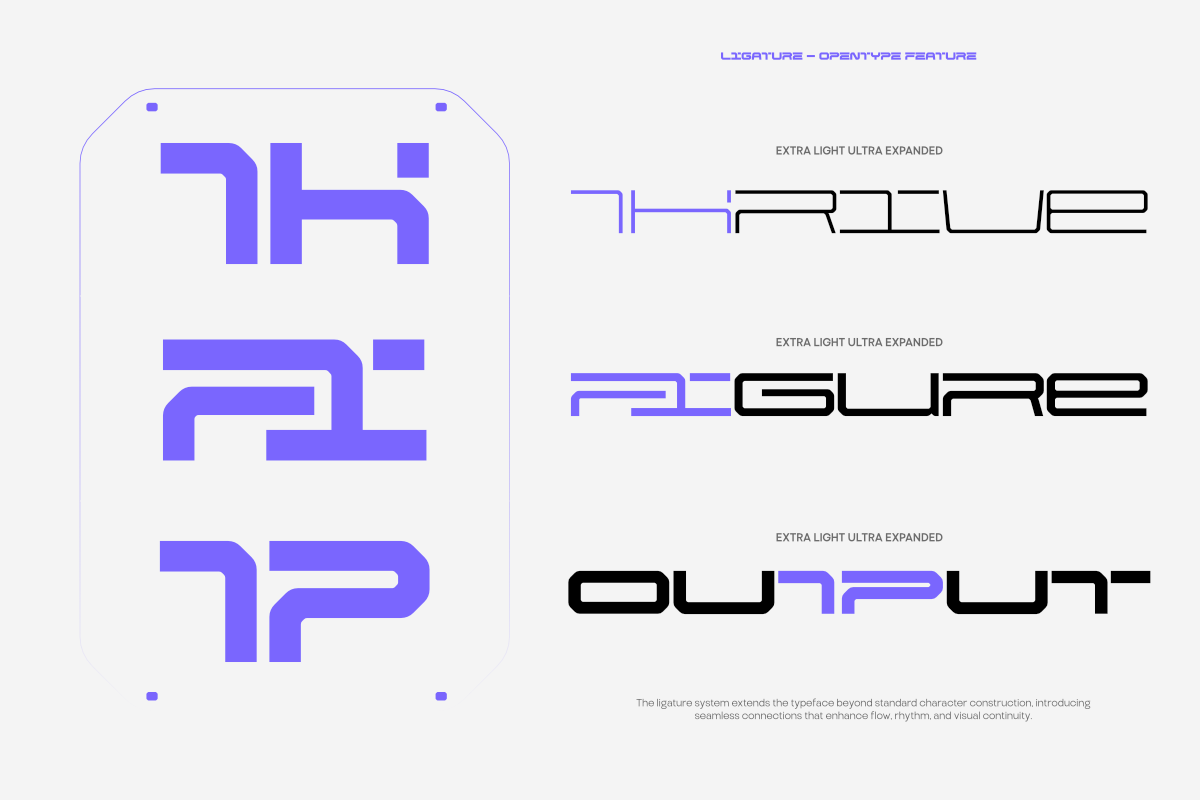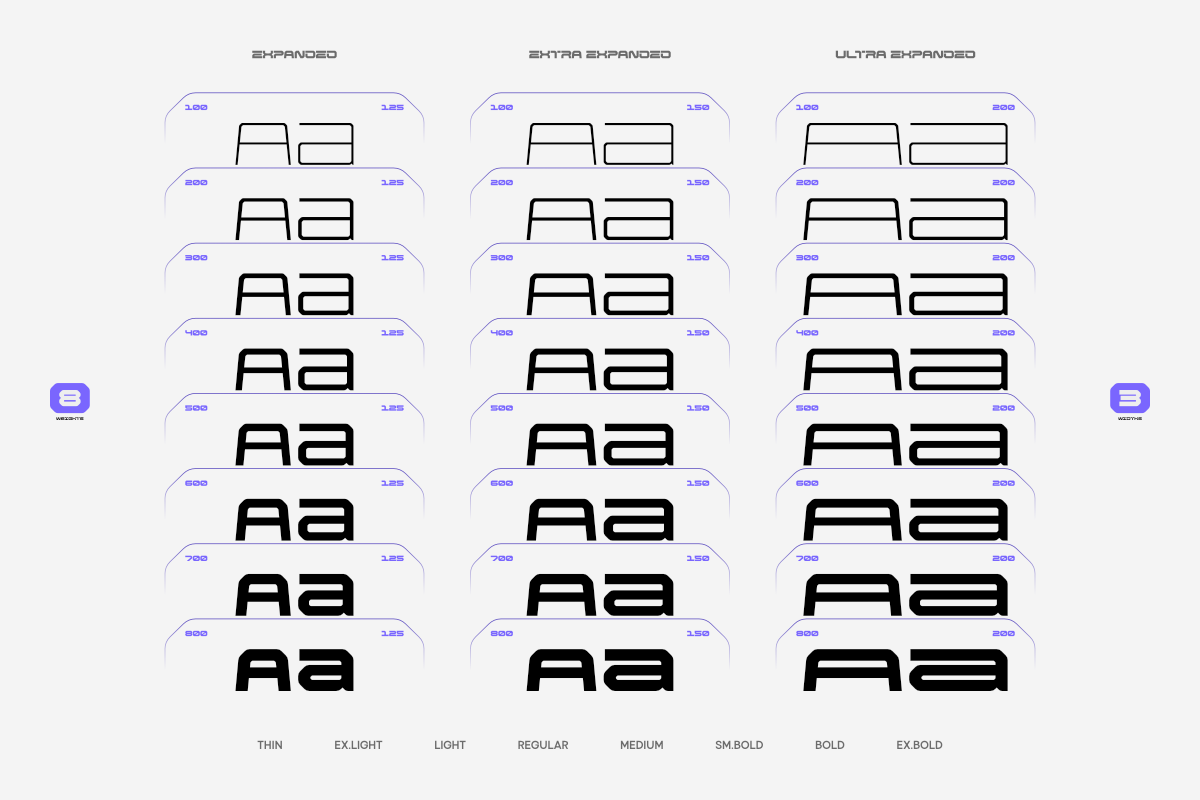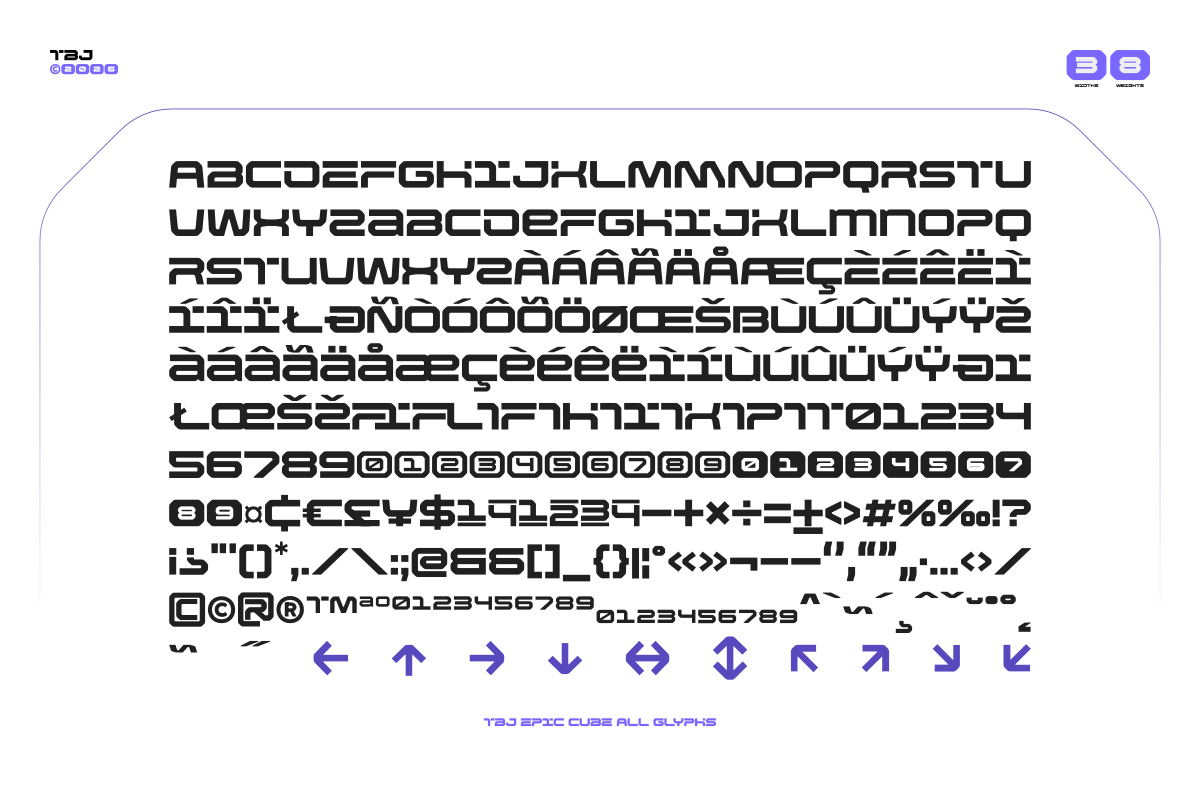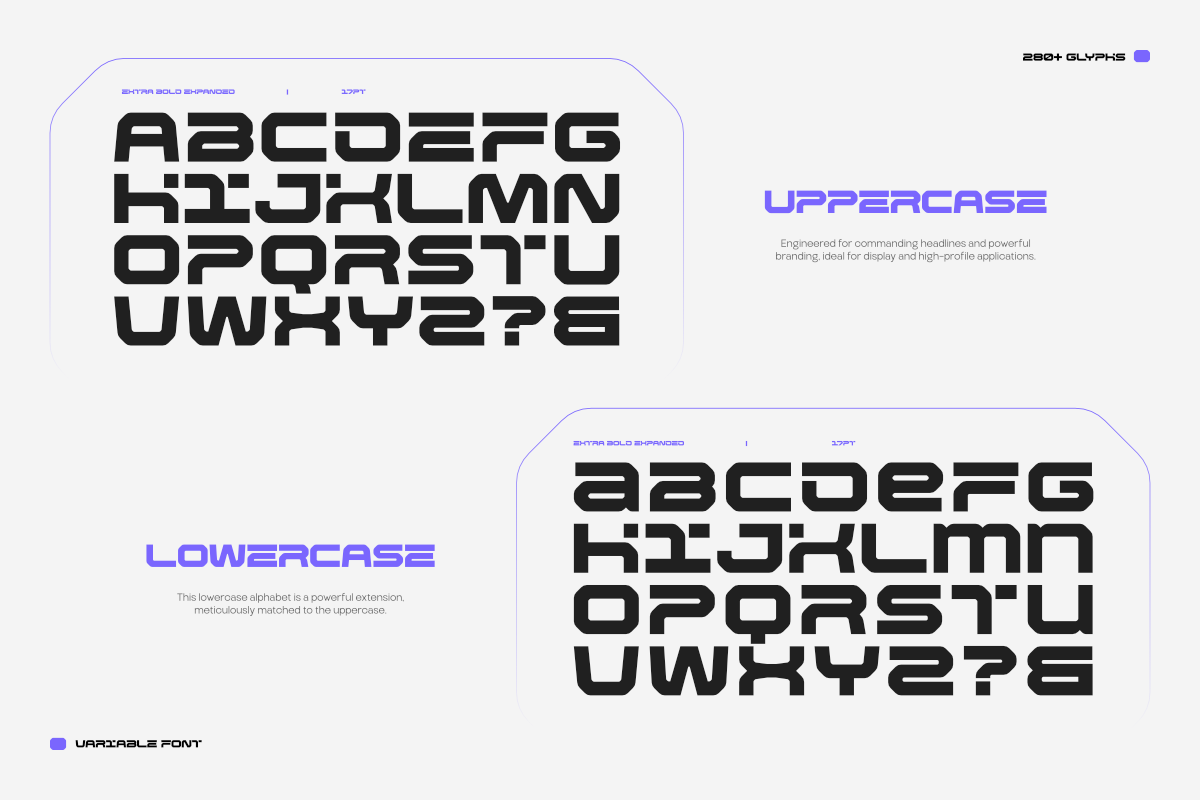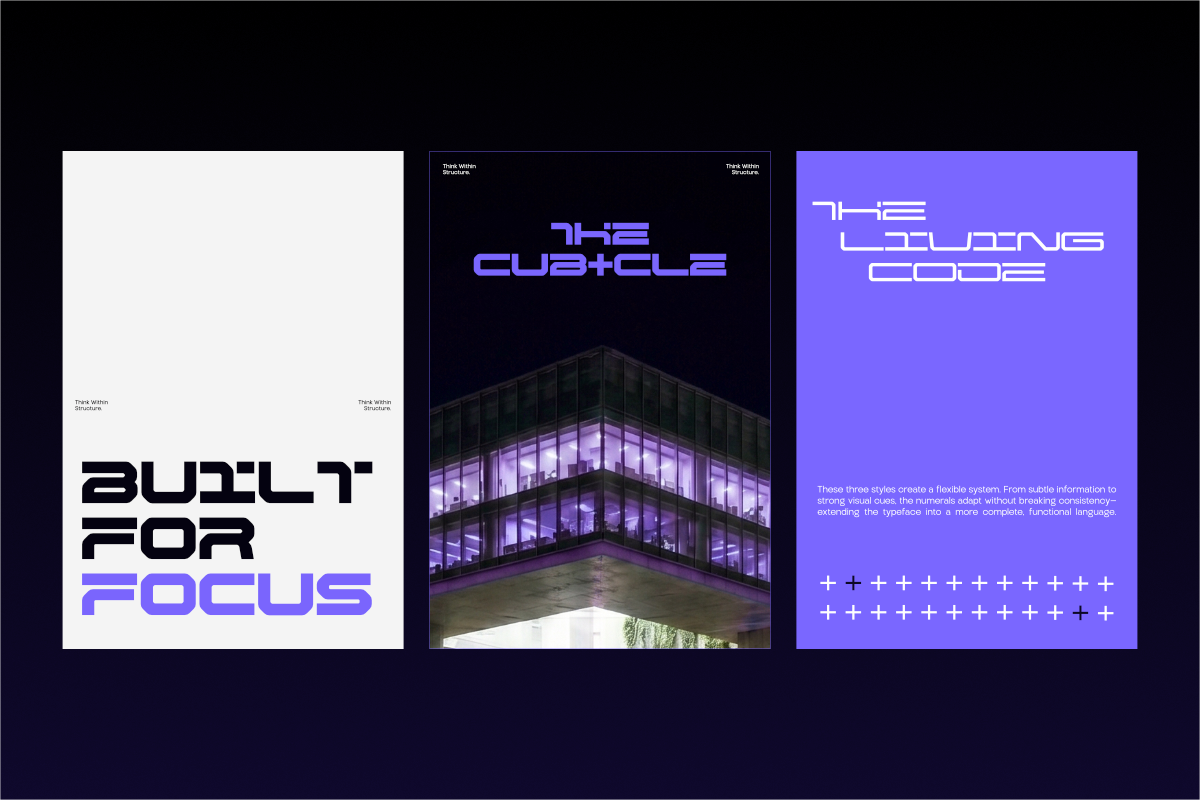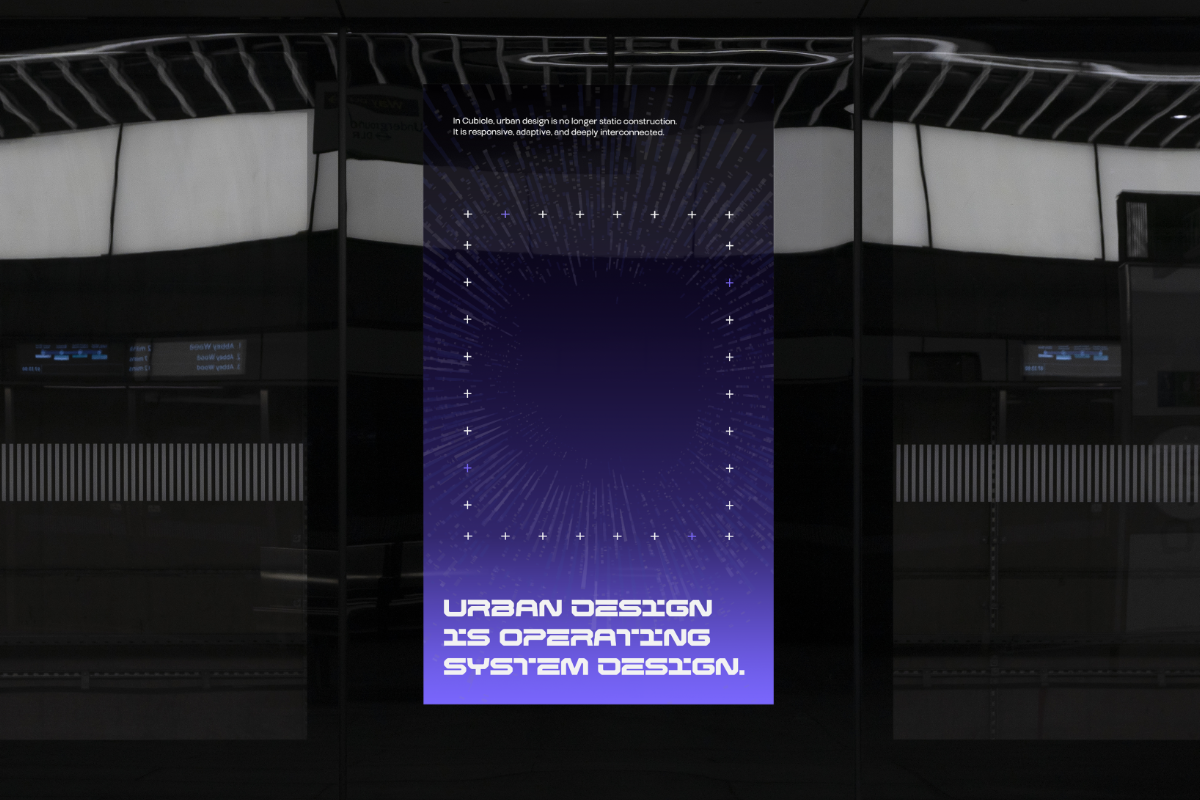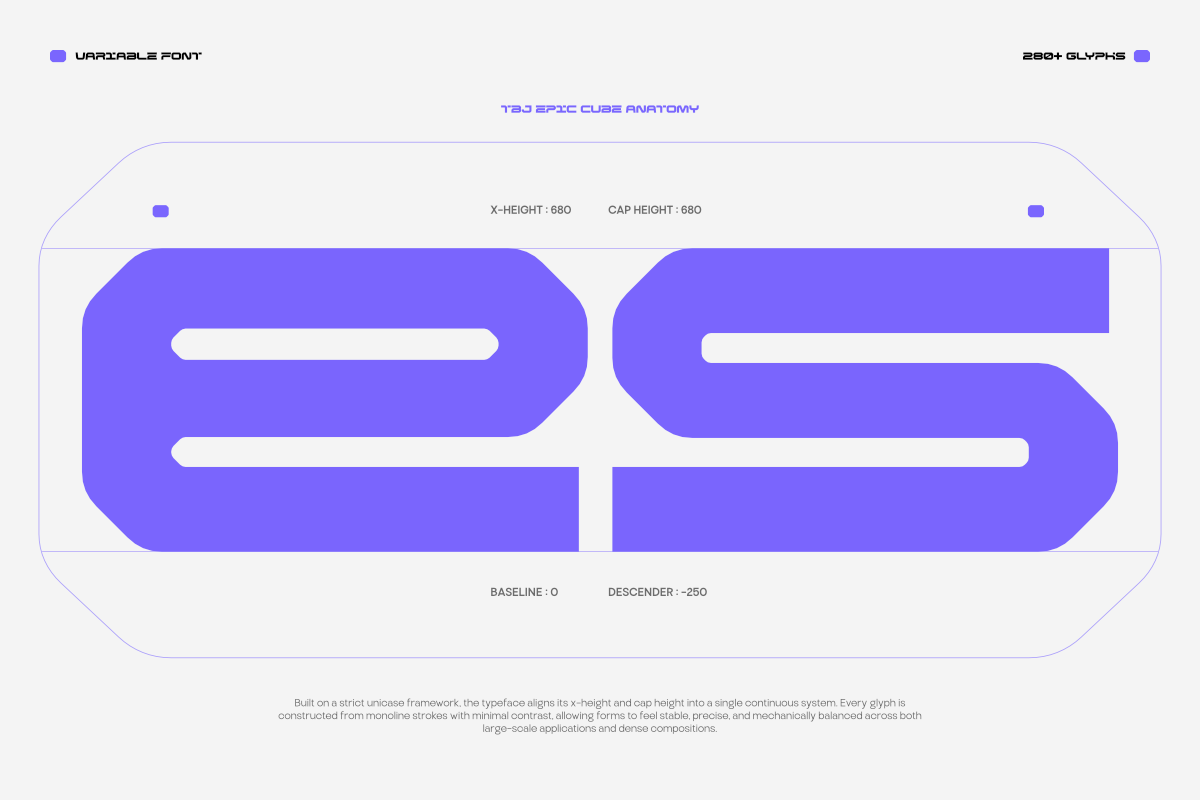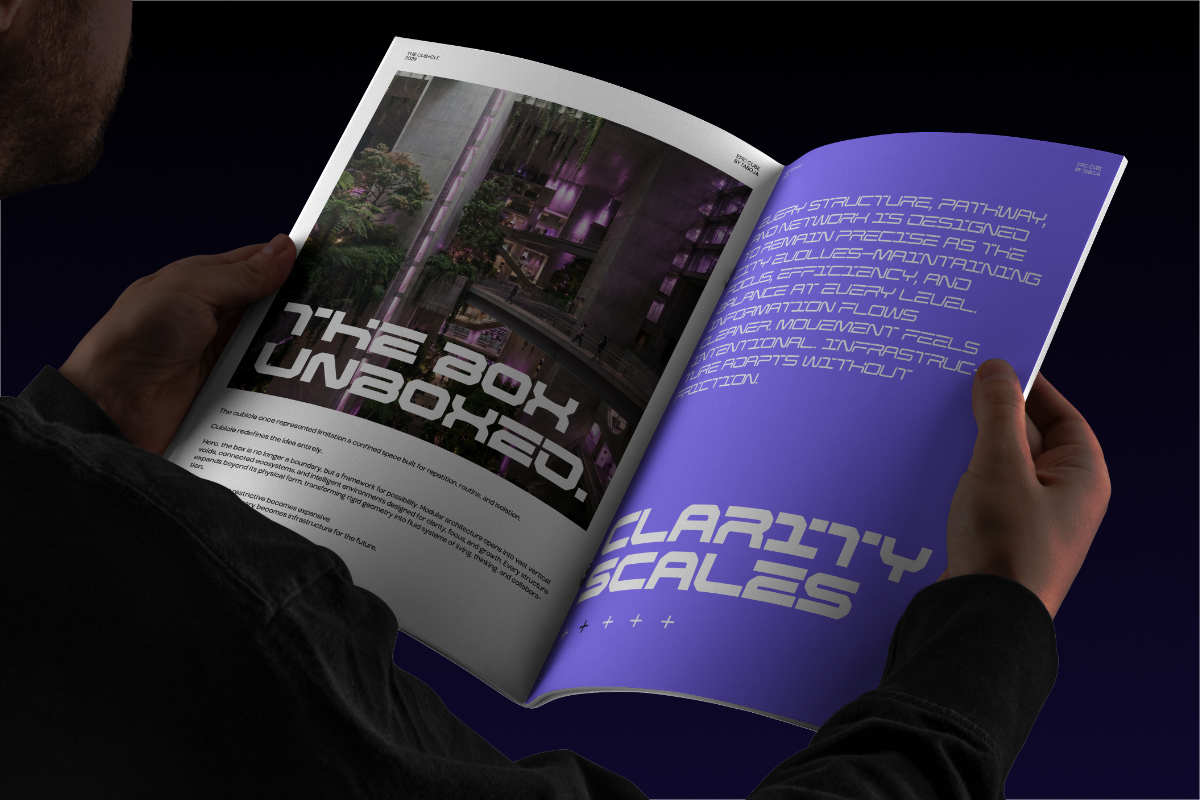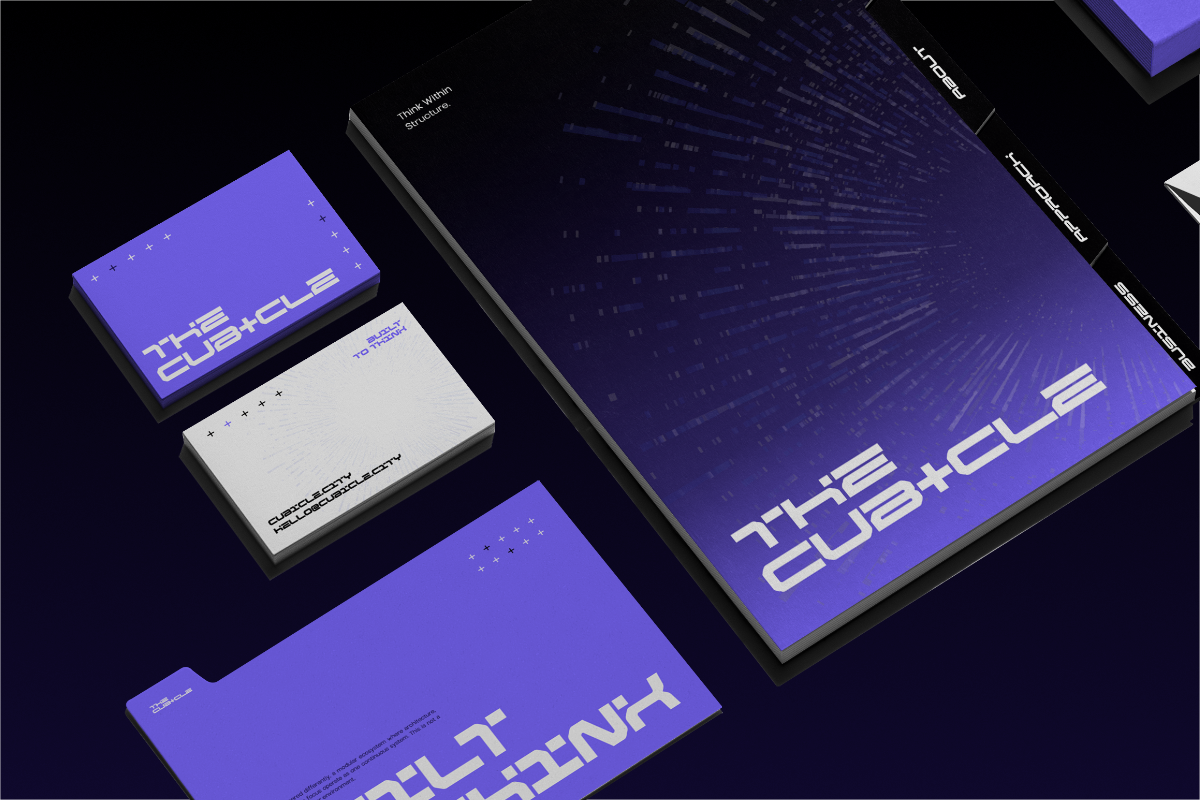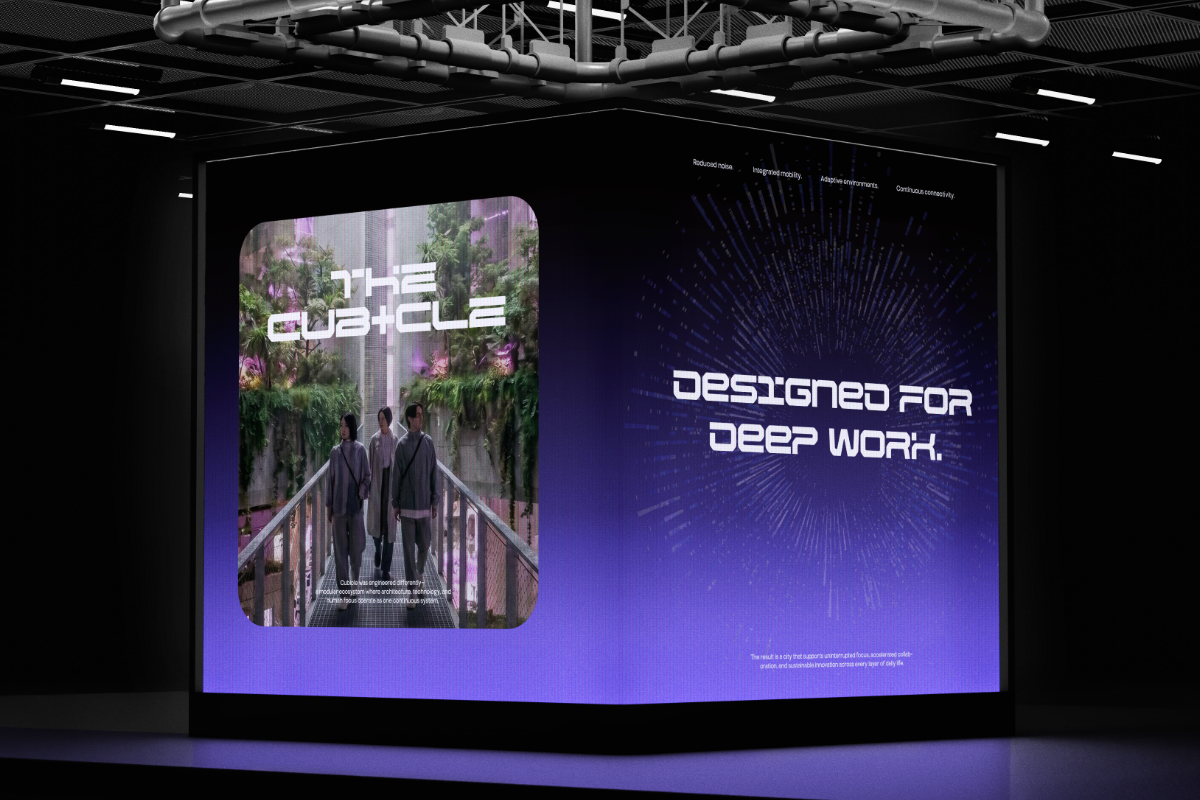
TBJ Epic Cube Display Sans Expanded
Some headlines don't ask for attention they demand space and refuse to shrink. TBJ Epic Cube Sans Expanded is a wide-format display sans built on hard-edged, cube-derived geometry: squared terminals, flat cuts, and zero typographic compromise. Rooted in futuristic grotesque tradition, it replaces organic softness with structural rigidity every letterform read as architecture, not ornament.
Three width grades Expanded, Extra Expanded, and Ultra Expanded give designers control over how far a headline pushes across the canvas. The squared stroke terminations and uniform stroke weight hold at large display sizes without optical collapse, while the geometric construction stays consistent across all eight weights from Thin to Extra Bold. Extreme widths don't distort the cube logic; they amplify it.
TBJ Epic Cube Sans Expanded performs at its strongest in contexts where type carries visual weight equal to imagery: sport event branding, sci-fi entertainment identities, gaming UI, esports team graphics, and stadium signage. It sets equally hard in tech product launches, dystopian editorial spreads, and motion graphics title cards anywhere the brief calls for presence with precision.
Technical specs:
24 styles (8 weights × 3 widths)
Geometric sans serif / wide display classification
Optimized for headline and large-scale display use